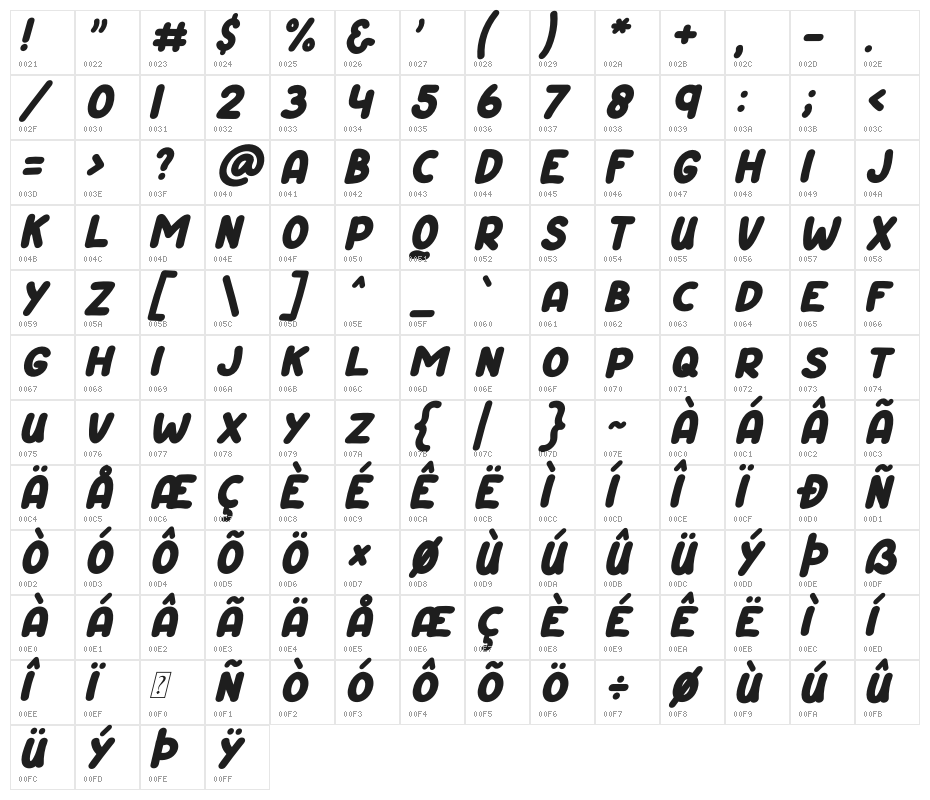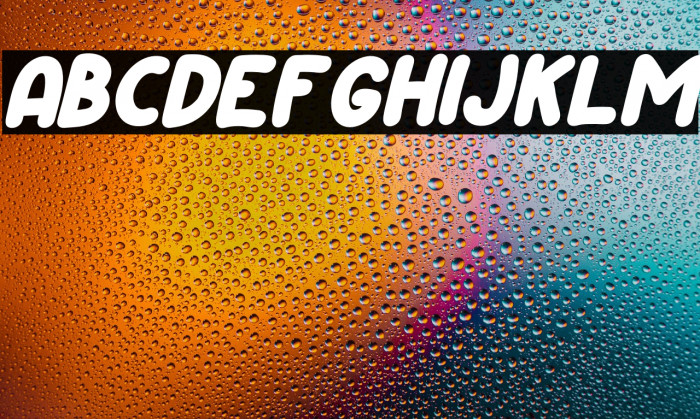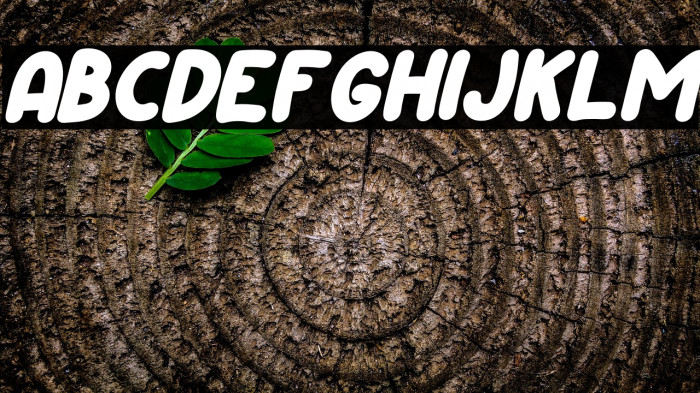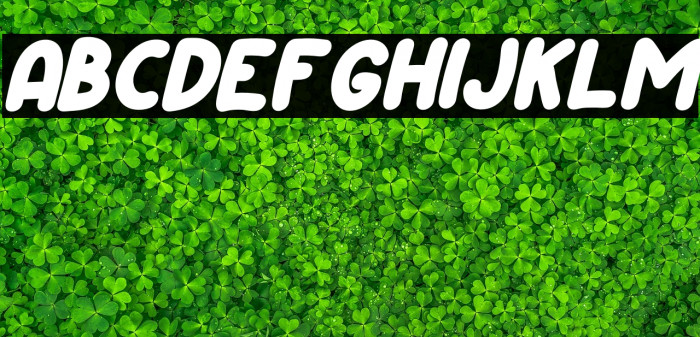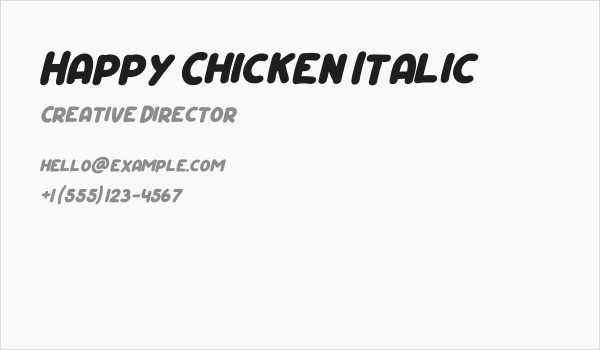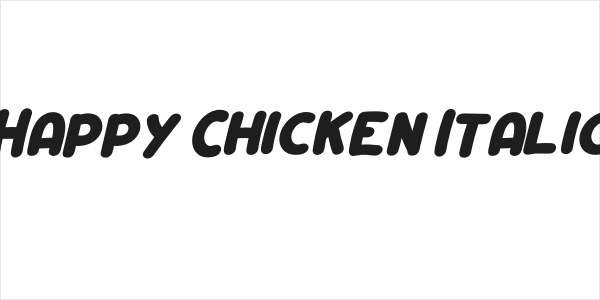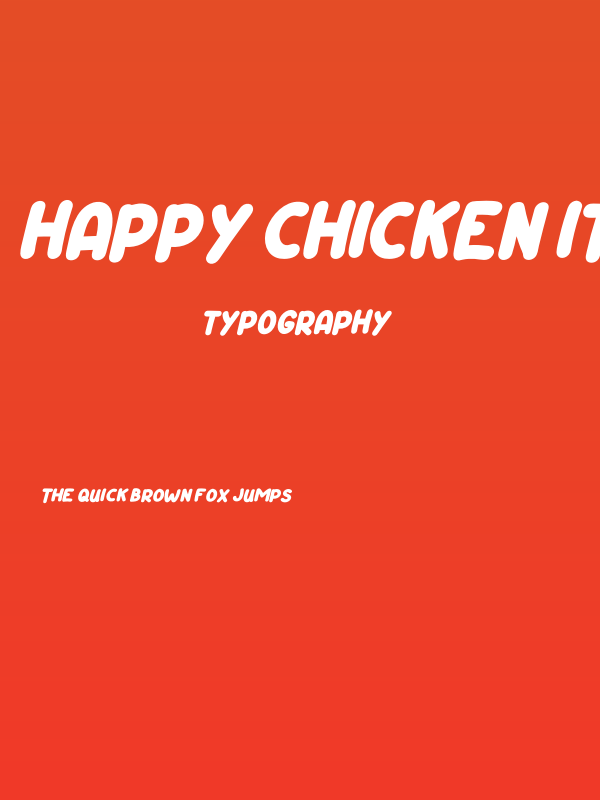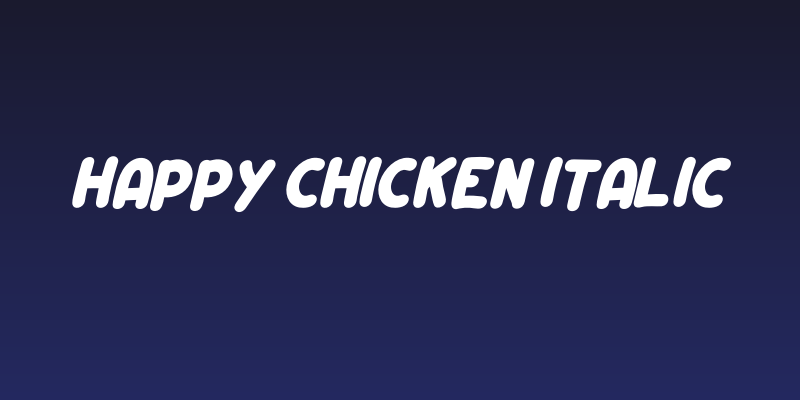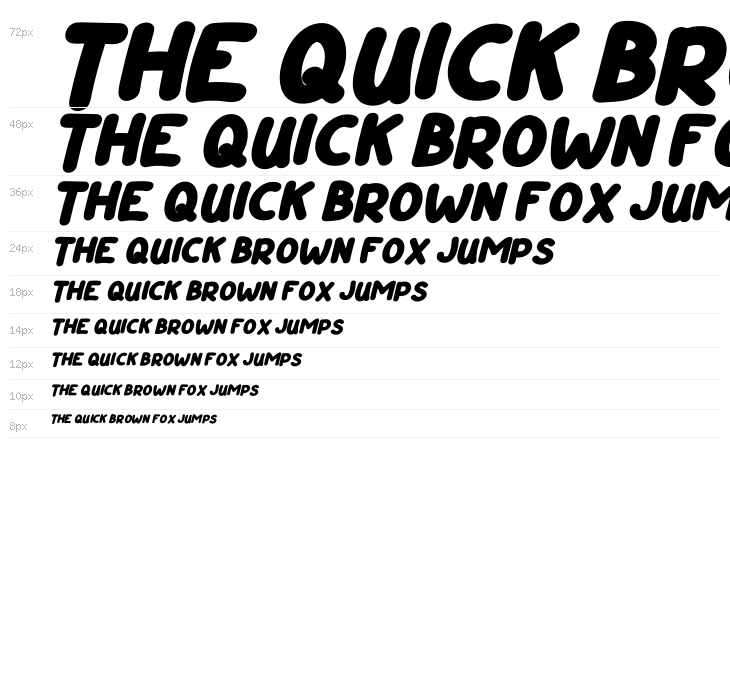
Happy Chicken Italic Font
Happy Chicken Italic Description
This playful and bold typeface features a handwritten style with a distinct italic slant, giving it a lively and dynamic appearance. The characters are rounded and thick, providing a sense of warmth and approachability. The font's whimsical nature is emphasized by its smooth curves and slightly exaggerated forms, making it ideal for projects that require a fun and informal touch. The consistent stroke width throughout the characters ensures readability while maintaining a casual aesthetic. Its unique style is perfect for capturing attention and adding personality to any design.
| Proposed Projects | Ideal for children's books, playful branding, greeting cards, and informal event invitations. |